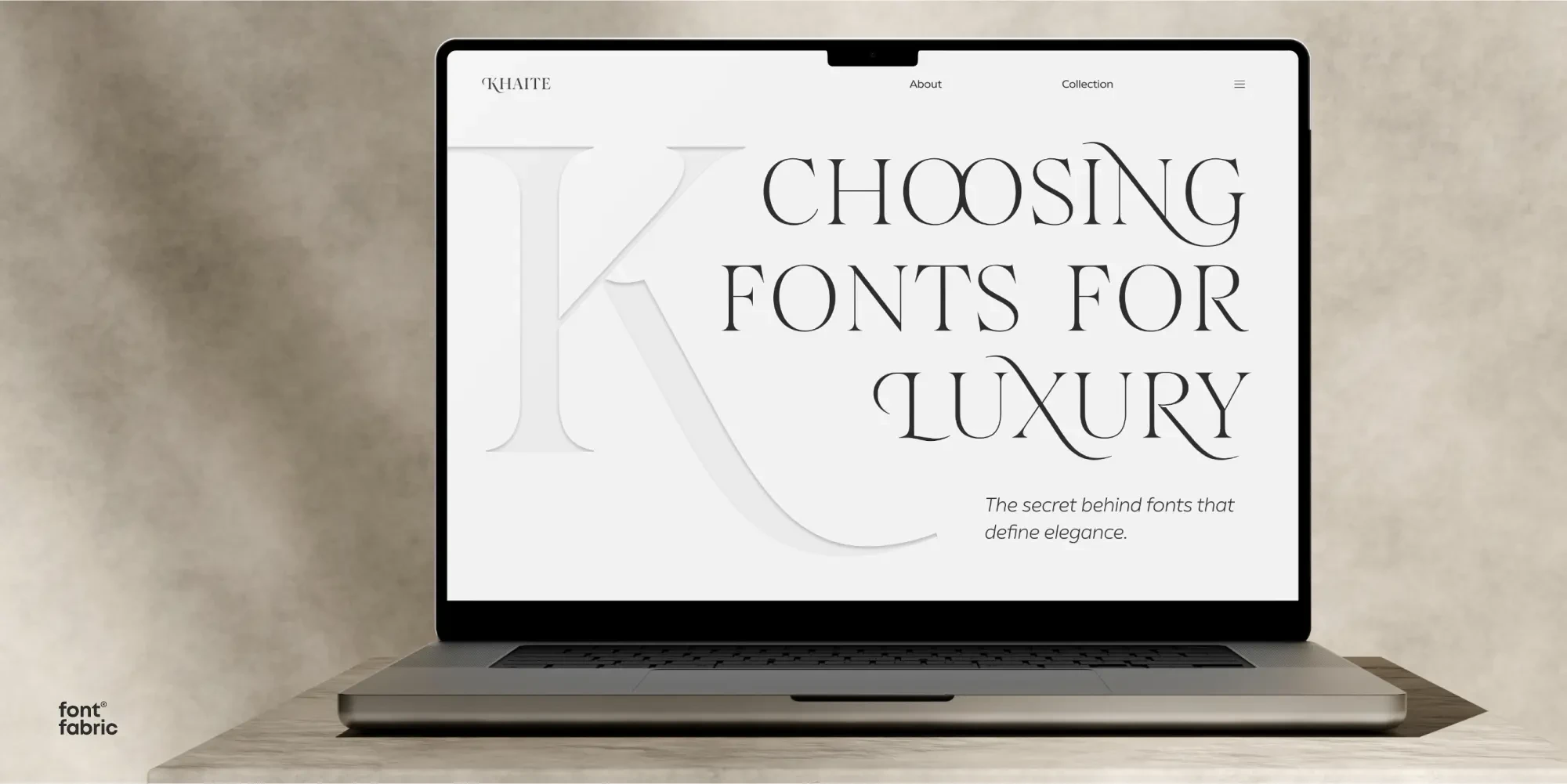
Typography in luxury branding is a powerful communicator of a desired ideal that people want to reach and are willing to pay for. That’s because fonts for luxury brands represent an object of desire.
Transmitting elegance, luxury and exclusivity starts with the brand logo but doesn’t stop there. The true art of luxury branding comes from combining a primary logo font and the supporting type families accompanying it.
So, what fonts do luxury brands use to communicate elegance? Depending on their brand identity, they create their logos with custom versions of classic serifs or contemporary takes on sans-serif styles. Then, they pair it with versatile, timeless fonts to complete their communication strategies.
A luxury font can be a classic serif or a modern sans-serif. But what’s important is that it transmits elegance while being balanced and strong.
For example, Tiffany´s logo uses a custom, thin serif font that conveys a soft, delicate elegance. Their website pairs it with classic Verdana for product descriptions and prices.
On the other hand, Chanel’s logo uses a sans serif with spaced-out letters that inspire confidence and stability. The supporting font on their website is Helvetica, a strong font similar to their logo. This combination is pure, chic and timeless.
Brand designers behind luxury names know the importance of uniqueness and exclusivity. That’s why bespoke typefaces are more common than classic, unchanged fonts, especially in logos.
That said, some luxury brands use serif typefaces “straight out of the box” for their logos, which works for them. For example, the Giorgio Armani logo is a classic Didot. The luxury magazine Vogue’s logo uses Bodoni, and Clarins, the skincare brand, utilizes Americana Bold. These fonts carry a sense of heritage that uplifts the brands and maintains their importance in the market.
In the realm of sans-serif fonts, Louis Vuitton’s logo uses pure Futura, Esteè Lauder’s uses Optima, and Bobbi Brown’s uses Univers Ultra Condensed. These powerful sans-serif fonts give the brands a contemporary, upscale, and dependable image.
But nothing says luxury like a custom typeface logo. Bespoke typefaces are sometimes versions of existing fonts, and other times, they’re entirely new.
Other luxury brands with custom typefaces include Hermès with a bespoke slab serif, Burberry with a subtle serif, Balmain with an austere all-caps sans and Fendi with an airy and light Helvetica-inspired font.
Luxury fashion brands tend to be courageous and bold in their designs while keeping their brand identity intact. The magic is in the power of their brand and the weight it’s carried over the years.
On the other hand, newer fashion brands don’t have the heritage appeal, so they depend on the elegance of a robust identity and story.
One noticeable feature of fashion brands is how many use all-cap logos, regardless of whether they’re serif, sans-serif or bespoke. On the other hand, their marketing materials, such as websites, billboards and social media, generally use sans-serif fonts that don’t compete with the logo but heighten it.
Dries Van Noten, for example, uses the same all-caps mini-serif font for its logo and website headers. The supporting fonts are an all-caps thin sans-serif and a classic italicized serif, adding a unique touch of elegance to its brand identity.
Another luxury fashion brand, Marni, has a thick sans-serif logo with widespread letters. Their supporting typefaces are easy-to-read geometric sans-serif fonts in lowercase styles. The combination is subtly elegant and portrays a modern luxury.
Finally, Batsheva’s logo is an all-caps hyper-condensed, Helvetica-inspired sans-serif with strong angles and straight lines. The font pairing on their website is made up of simple, unassuming ChaletBook and Arial. Using a Helvetica-style font for a logo isn’t exactly unique, but making it hyper-condensed gives it an exquisite style.
When choosing the right font for your luxury brand, consider the following characteristics:
Brand’s identity alignment. Your chosen typography should reflect your brand’s core values and personality. If your luxury brand emphasizes heritage and tradition, a classic serif typeface might be more appropriate. For brands focused on innovation and contemporary luxury, a modern sans-serif or custom typeface could better communicate your message and appeal to your target audience.
Readability and versatility. While your logo’s font can be distinctive and unique, your supporting typefaces must maintain legibility across all platforms and sizes. Consider fonts that work well in both digital and print formats, from large billboards to small apparel hangtags. The typography should maintain its luxury appeal, whether on headlines, body text, or product packaging.
Elevating Elegance: The Role of Fonts in Luxury Branding